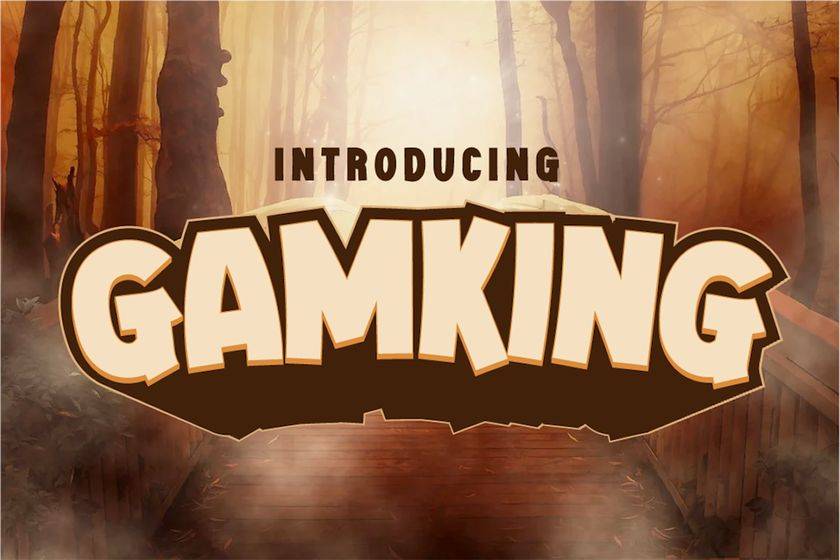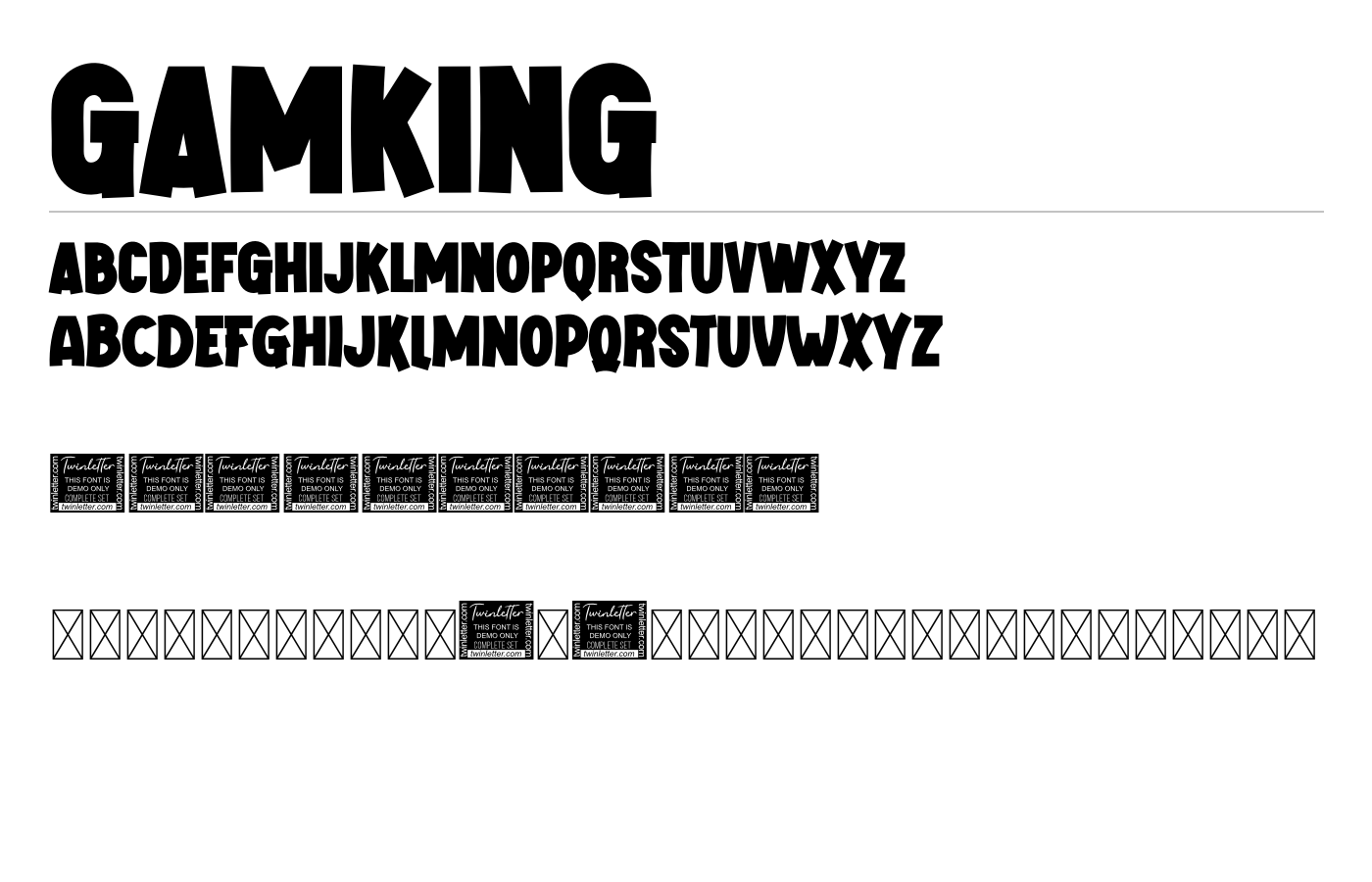
Gamking is a bold, playful sans serif font with exaggerated, chunky letterforms that create a fun and energetic vibe. Its uneven stroke widths and quirky shapes make it ideal for eye-catching headlines, logos, and designs aimed at a youthful or casual audience. This font works well in projects where a strong, informal character is desired to grab attention and convey a lively, approachable mood.
Gamking Font
About Gamking Font